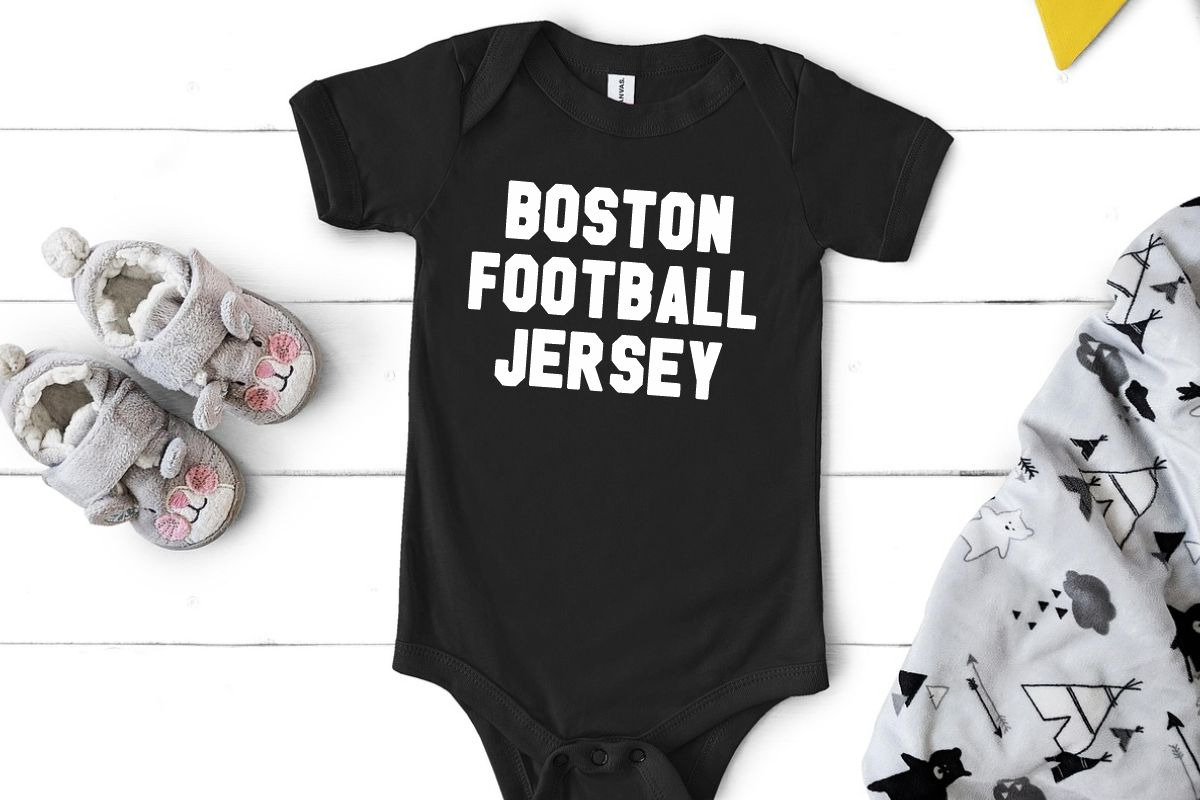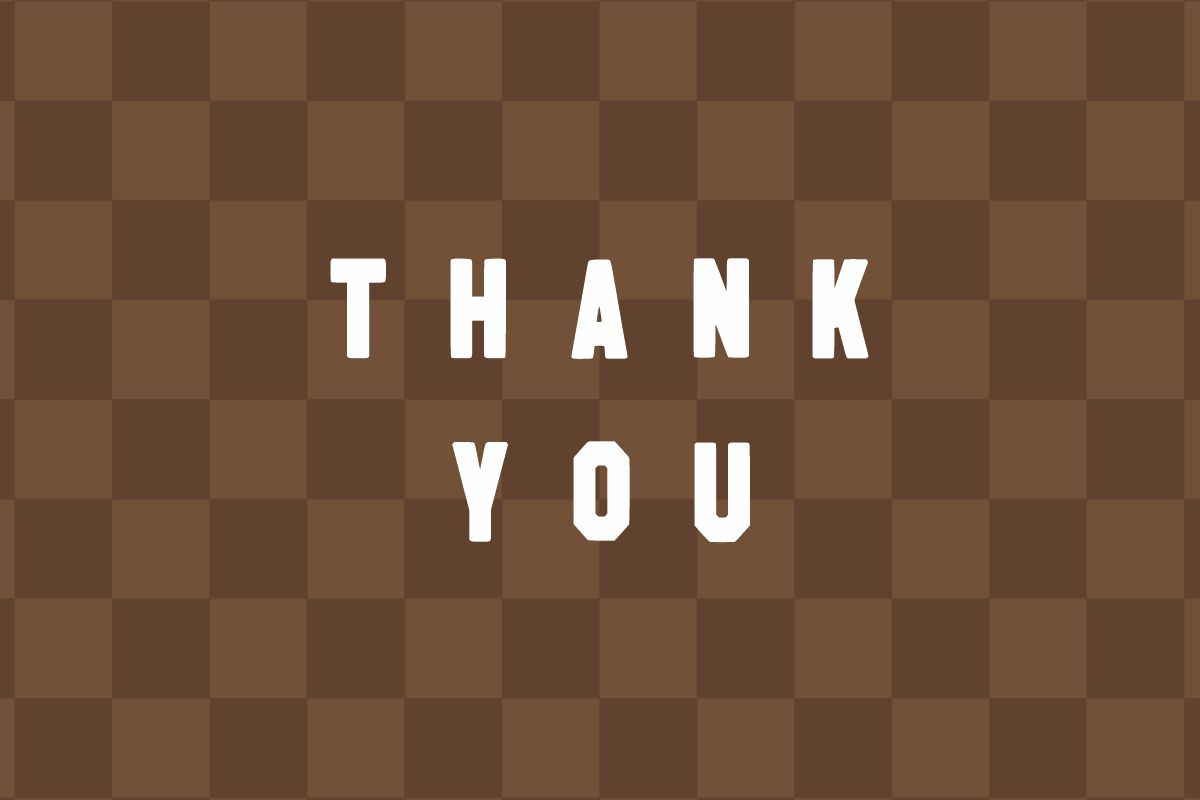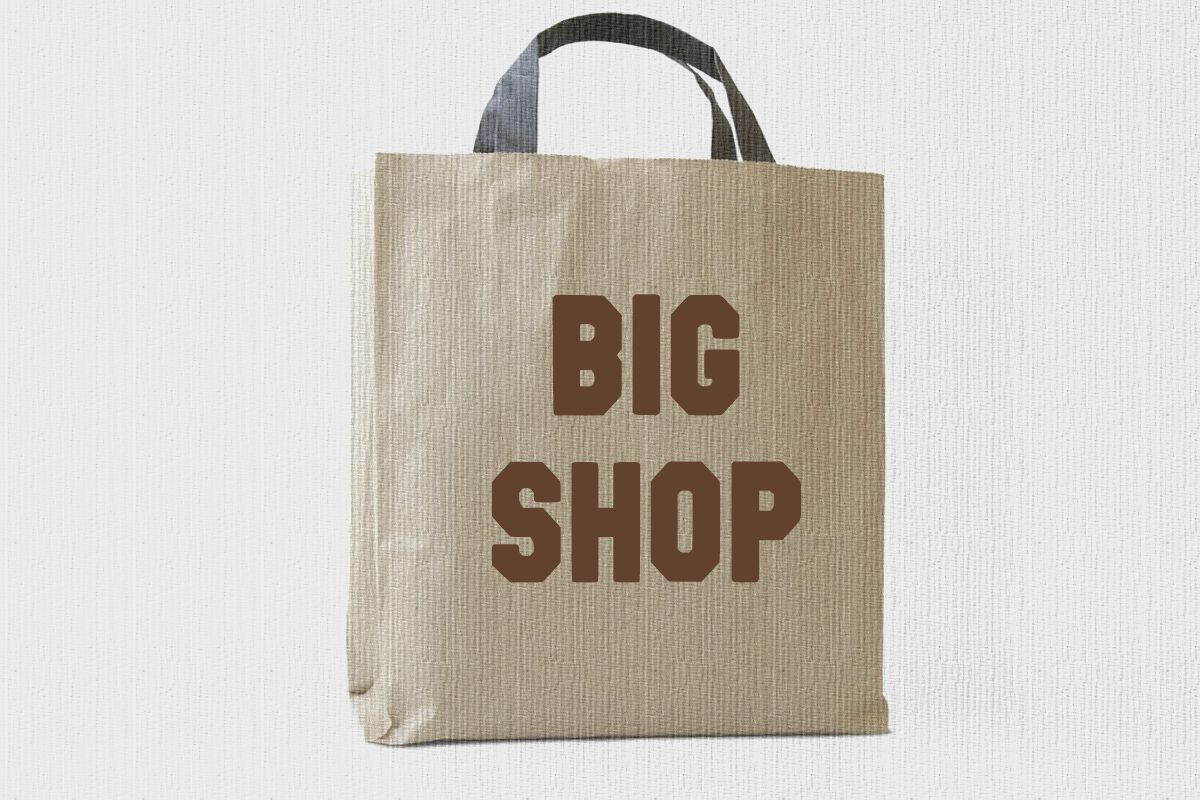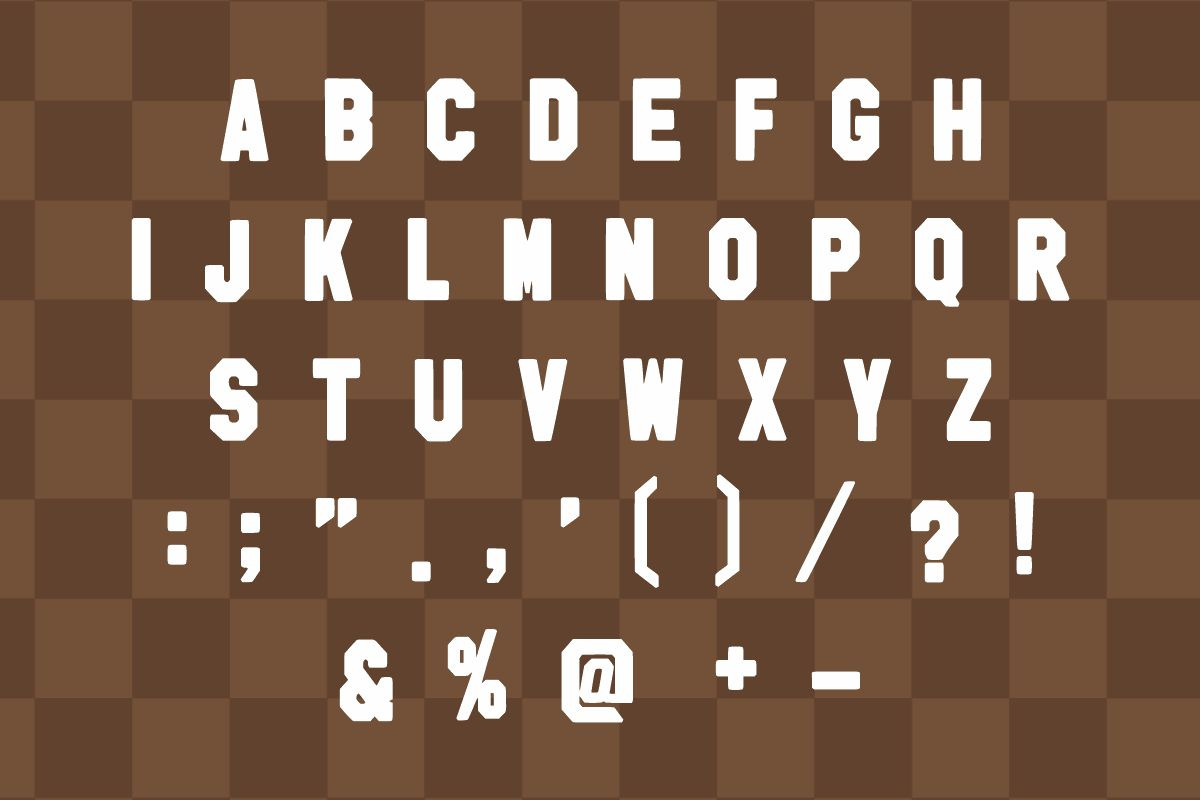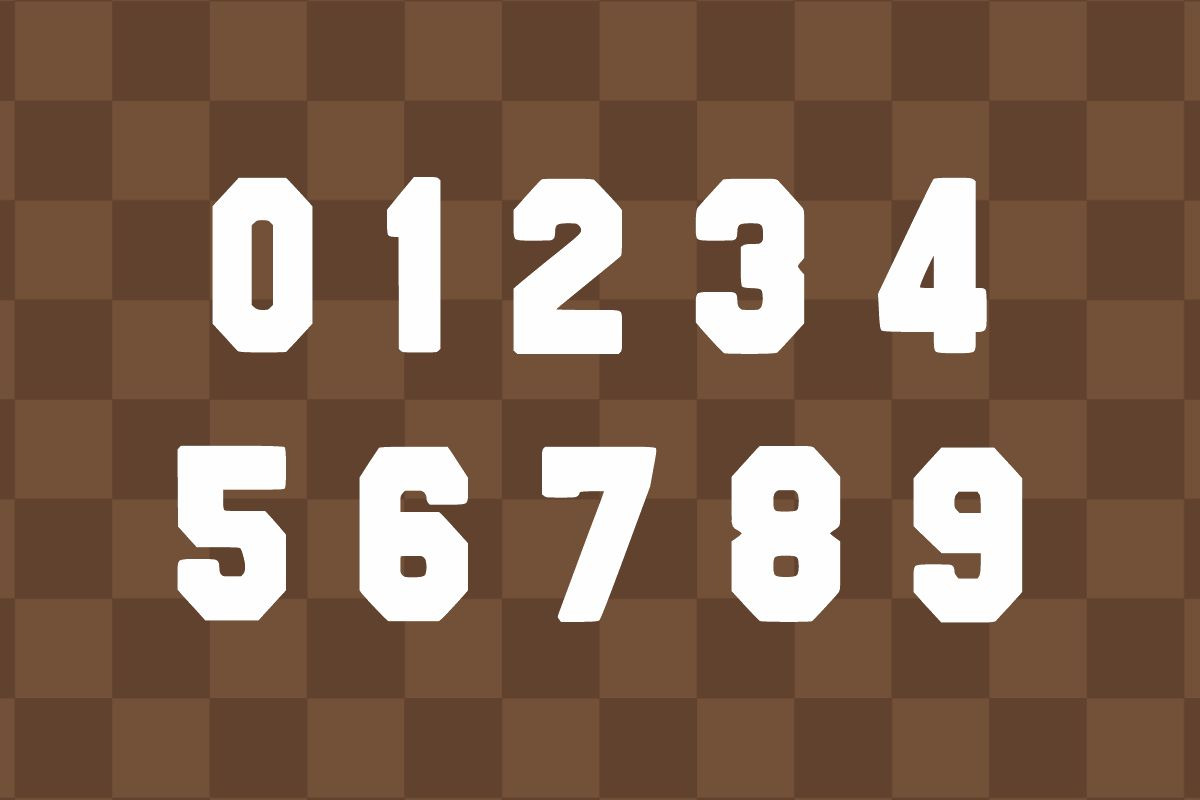
Boston Football
Boston Football is a bold, vintage-style varsity display font inspired by classic collegiate lettering and nostalgic sports aesthetics. Its strong, structured form makes it a standout choice for projects that need a confident and retro appeal.
Ideal for winter and holiday-themed branding, this font fits perfectly on product packaging, apparel designs, event invitations, motivational quotes, posters, labels, and bold logos. Whether you’re crafting a standout t-shirt graphic or adding a rugged touch to your design, Boston Football delivers impact with character.